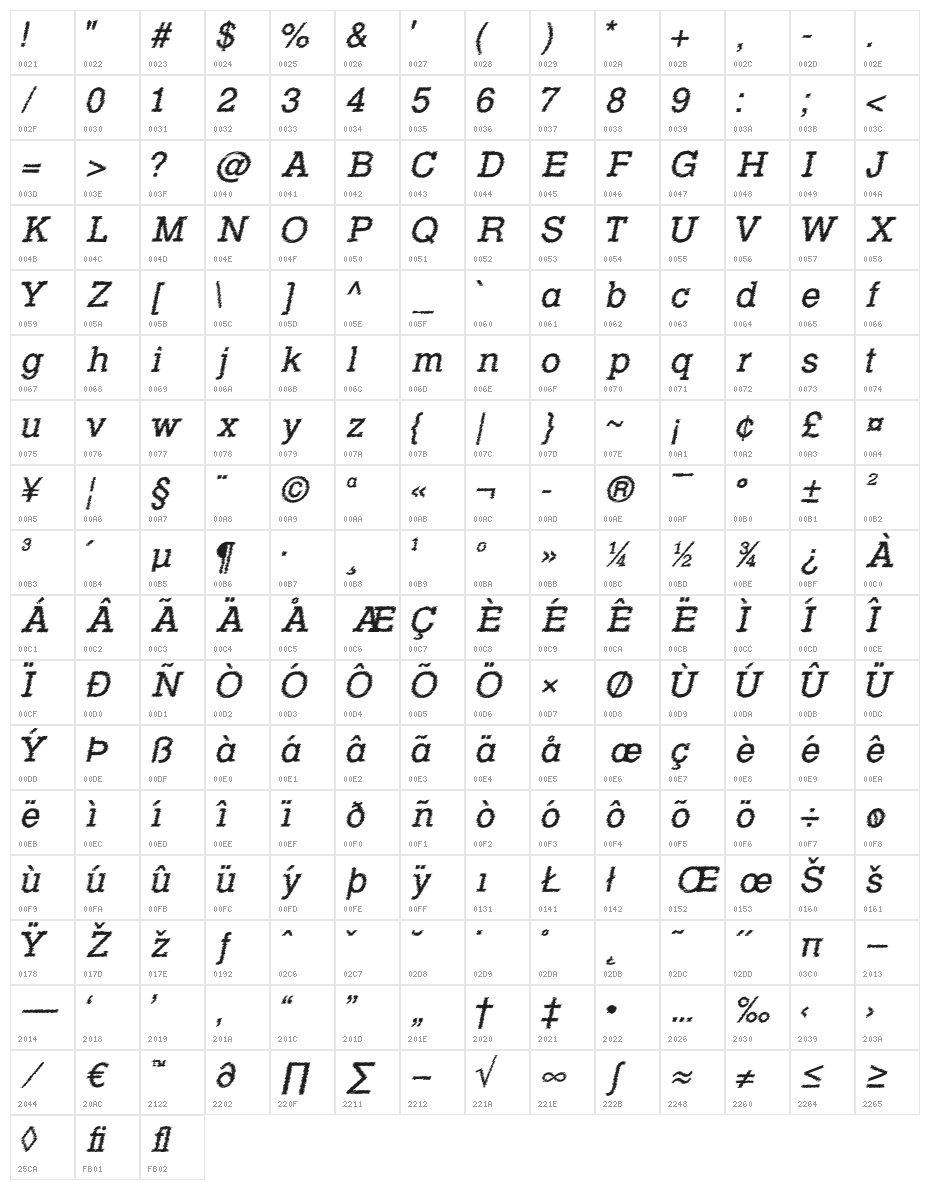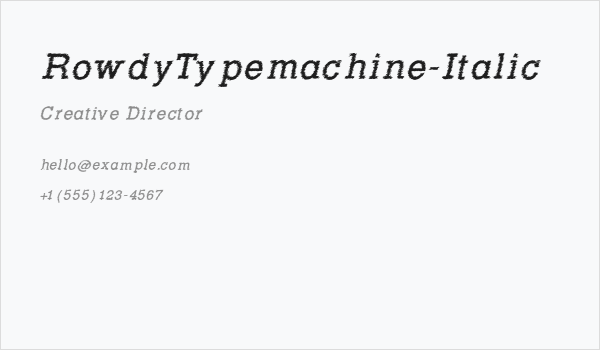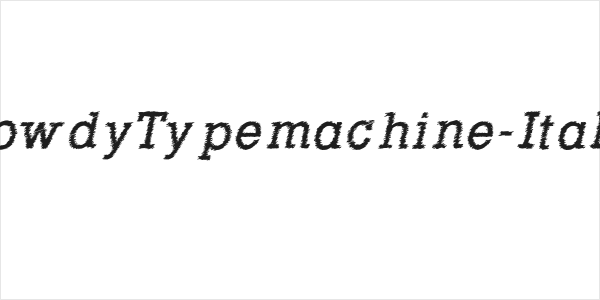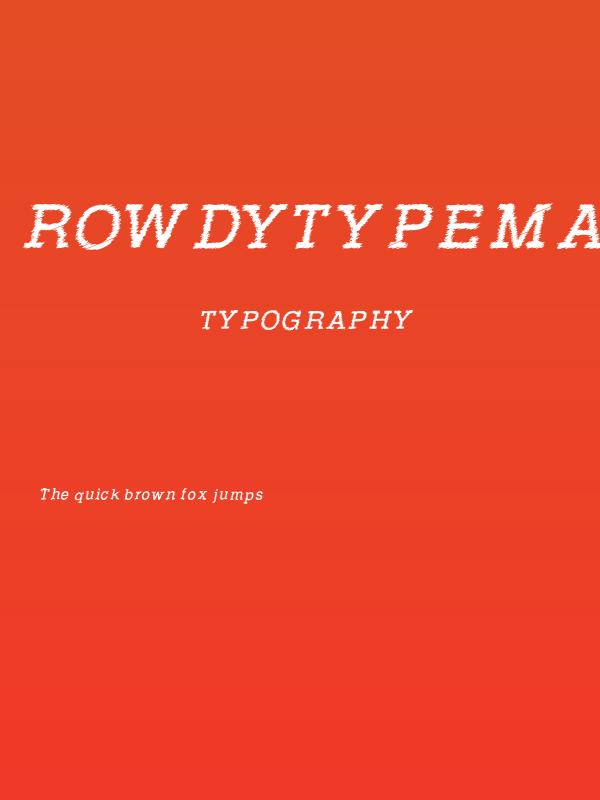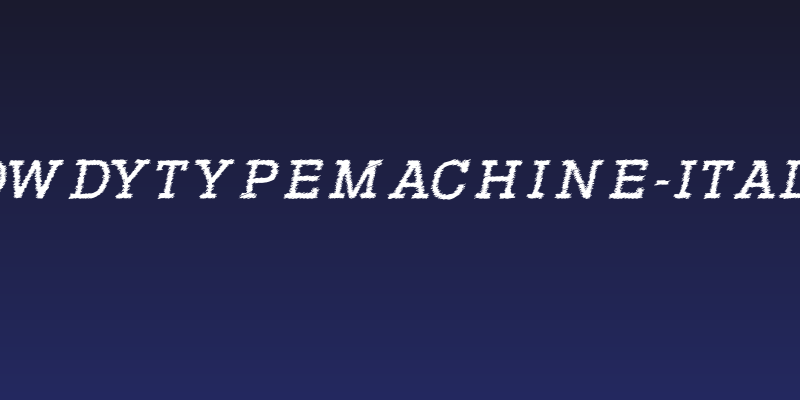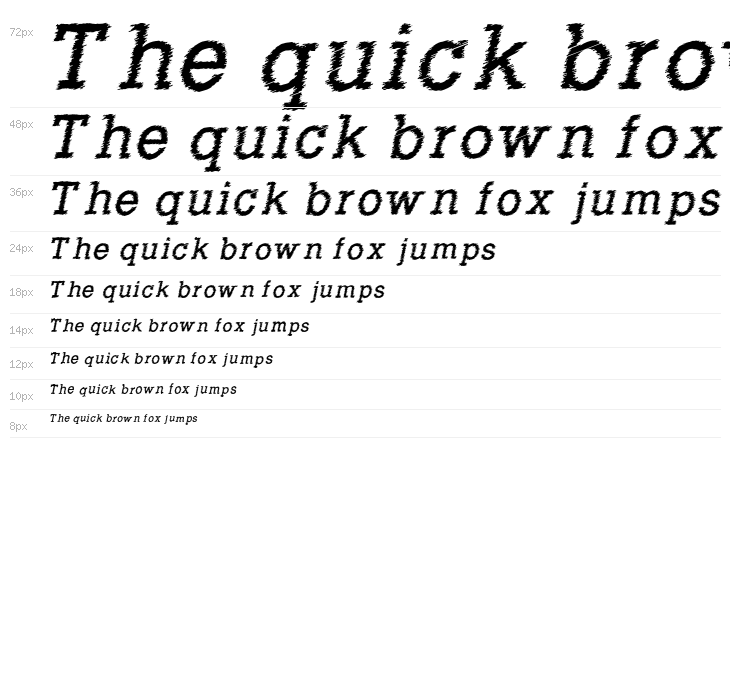
RowdyTypemachine-Italic Font
RowdyTypemachine-Italic Description
This font features a dynamic and energetic style with a distinctly italicized slant, giving it a sense of motion and urgency. The characters are bold and have a textured, rough appearance, reminiscent of a typewriter or a hand-sketched design. The uppercase and lowercase letters maintain a consistent style, with the uppercase being slightly more pronounced. Numbers and special characters follow the same textured pattern, ensuring uniformity across all glyphs. This font's unique texture and slant make it stand out, providing a vintage yet modern feel.
| Proposed Projects | Ideal for projects requiring a vintage or retro aesthetic, such as posters, album covers, or branding materials that aim to convey a sense of dynamism and creativity. |